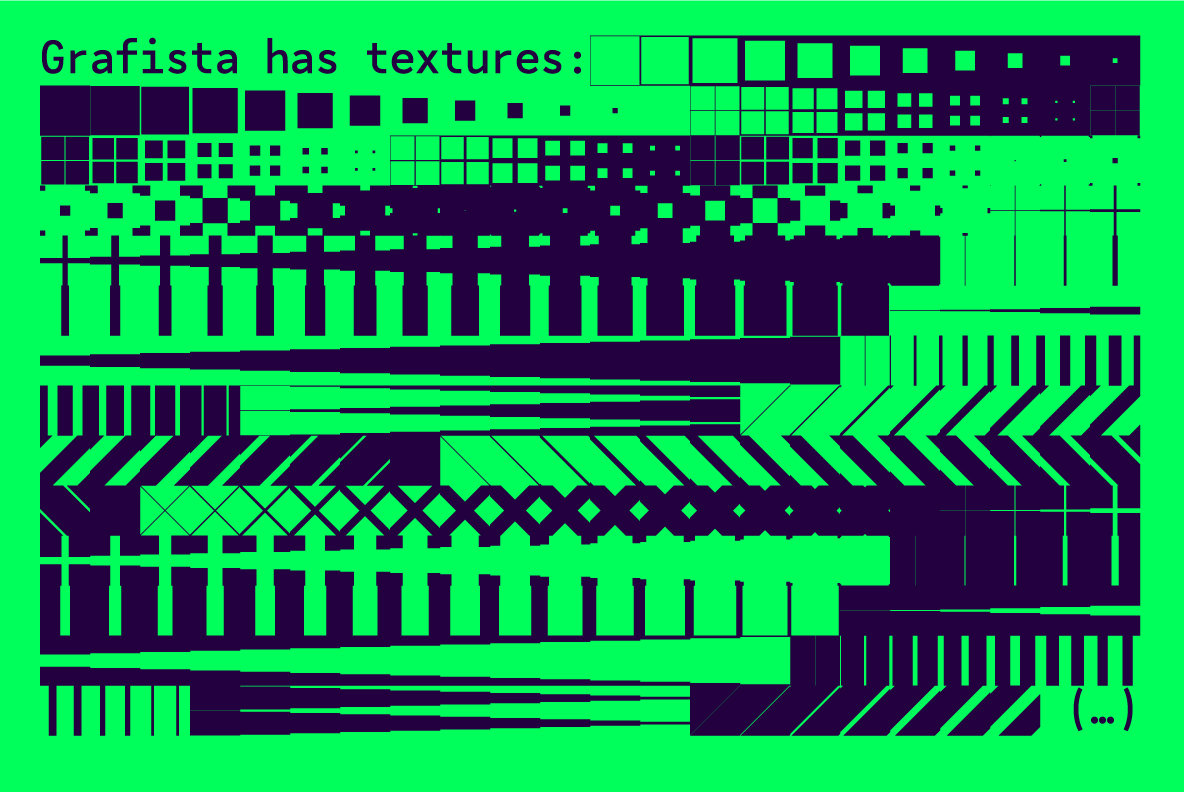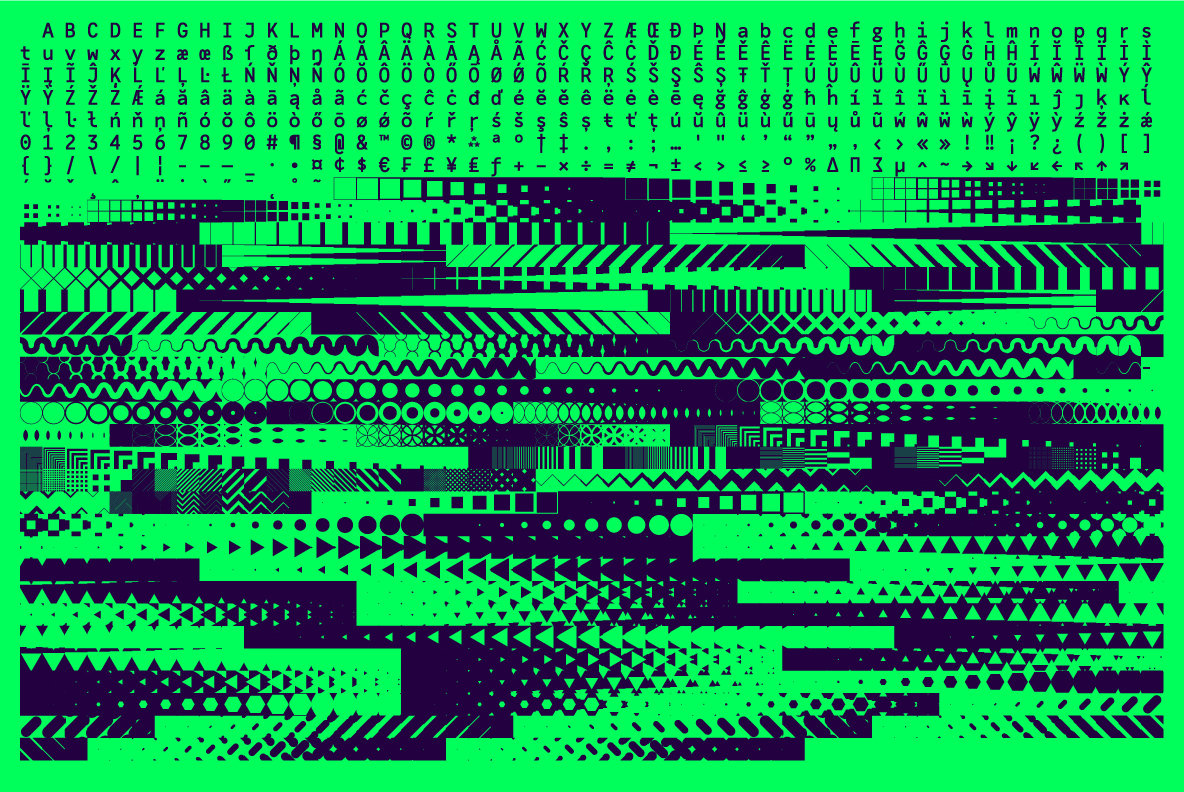
Grafista Font
Grafista Regular
Grafista is an extrapolation on what fonts are used for: in spite of the possibility to use it for setting text, Grafista strives when used as a texture library, the same way that one would set up tiles.
Thus, Grafista was built as two different things compiled in the same font: the letterforms (for setting text) and the texture library.
Both of the sets are monospaced (with every glyph having the same width), but the letterforms are half of the texture tiles’ width. On the tech side, the letterforms’ are 500/1000 UPMs, while the tiles are 1000/1000 UPMs.